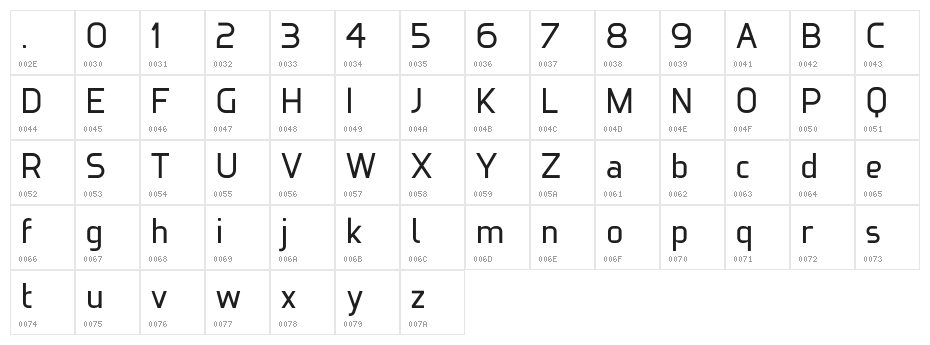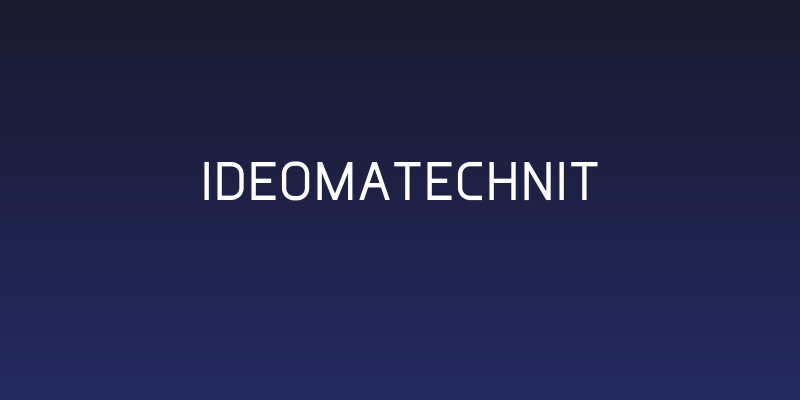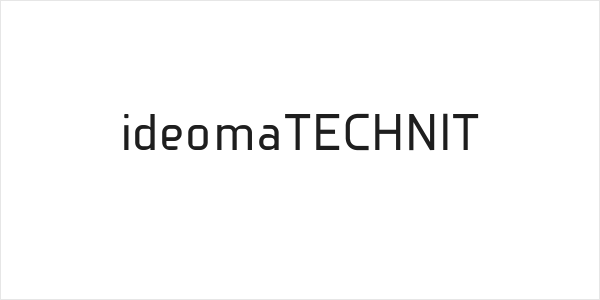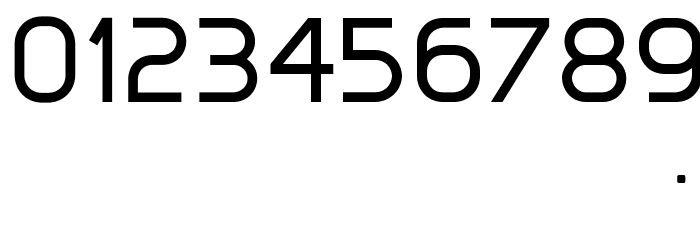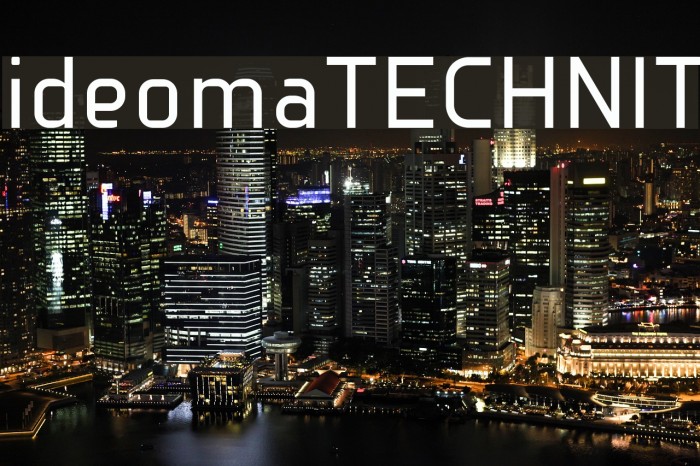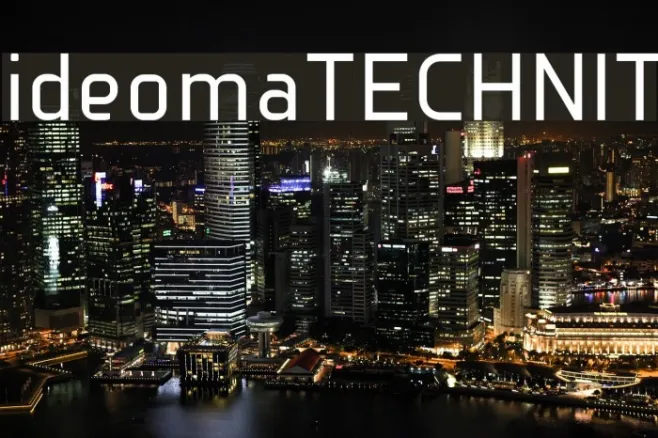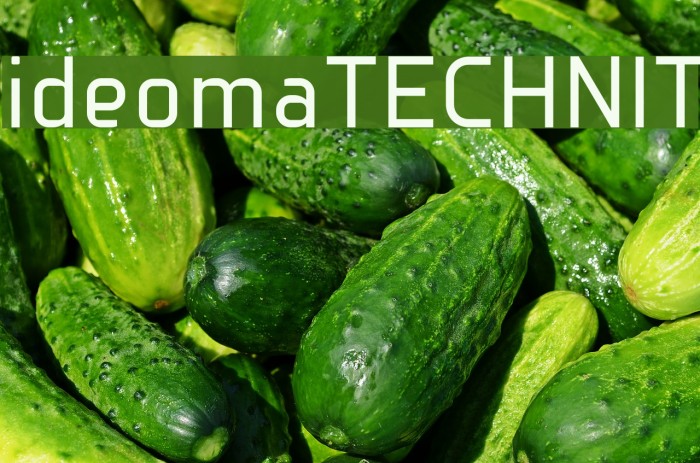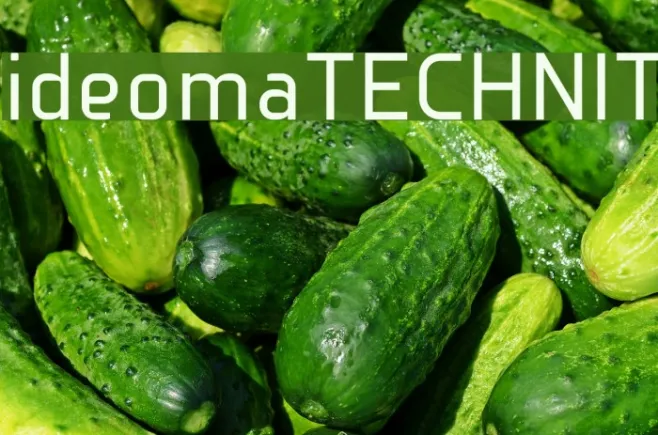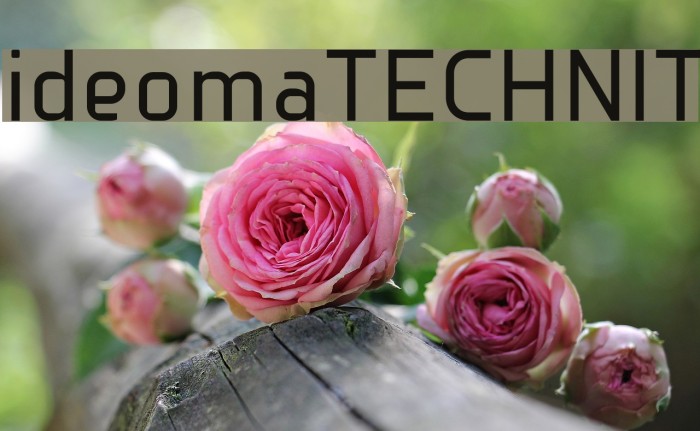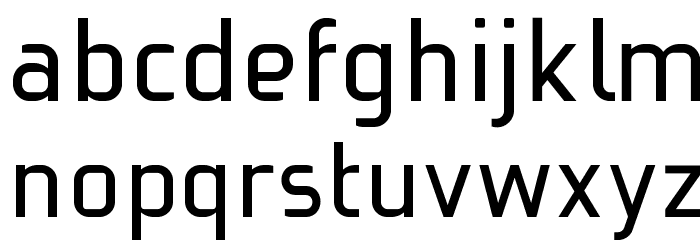
ideomaTECHNIT Font
ideomaTECHNIT Description
This font features a clean and modern sans-serif style with a geometric structure. The characters are well-defined with a consistent stroke width, giving it a uniform appearance. The uppercase letters are slightly taller than the lowercase, maintaining a balanced proportion. The numerals are clear and distinct, making them easily readable. Special characters are designed to match the overall aesthetic, providing a cohesive look across all glyphs. The font's simplicity and clarity make it suitable for a variety of applications, from digital interfaces to print media.
| Proposed Projects | Ideal for tech branding, user interfaces, digital content, and modern print designs. |